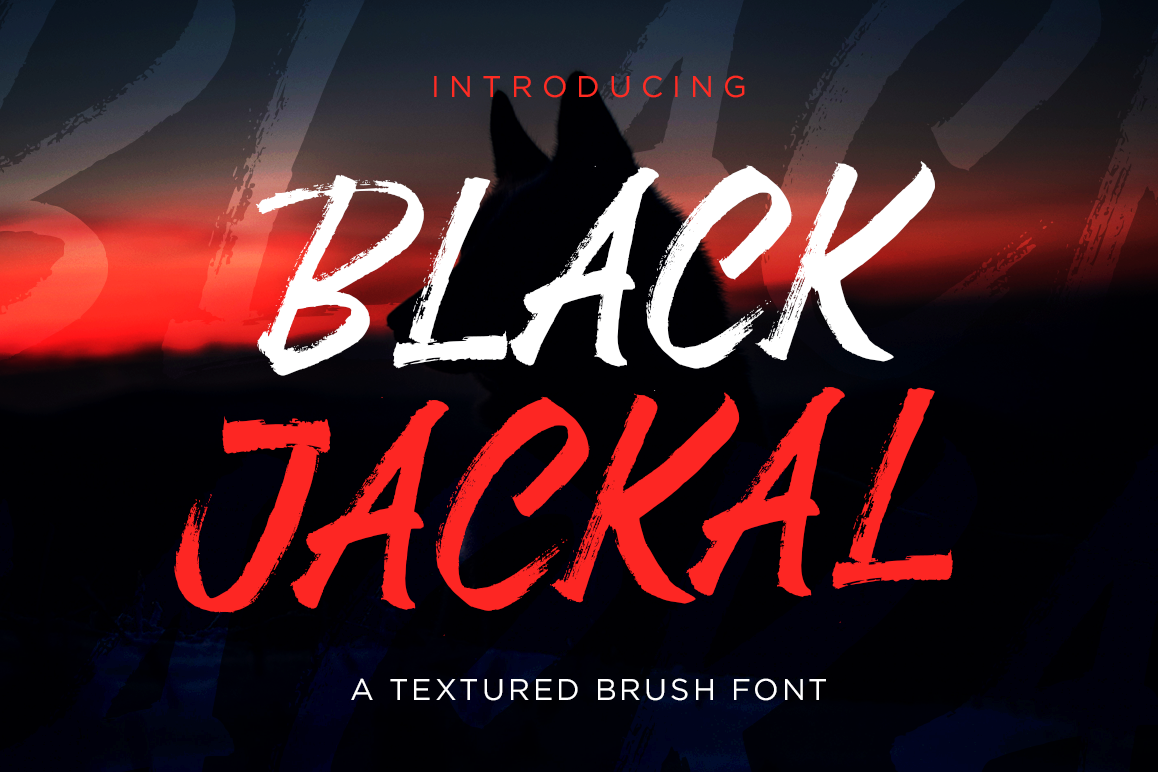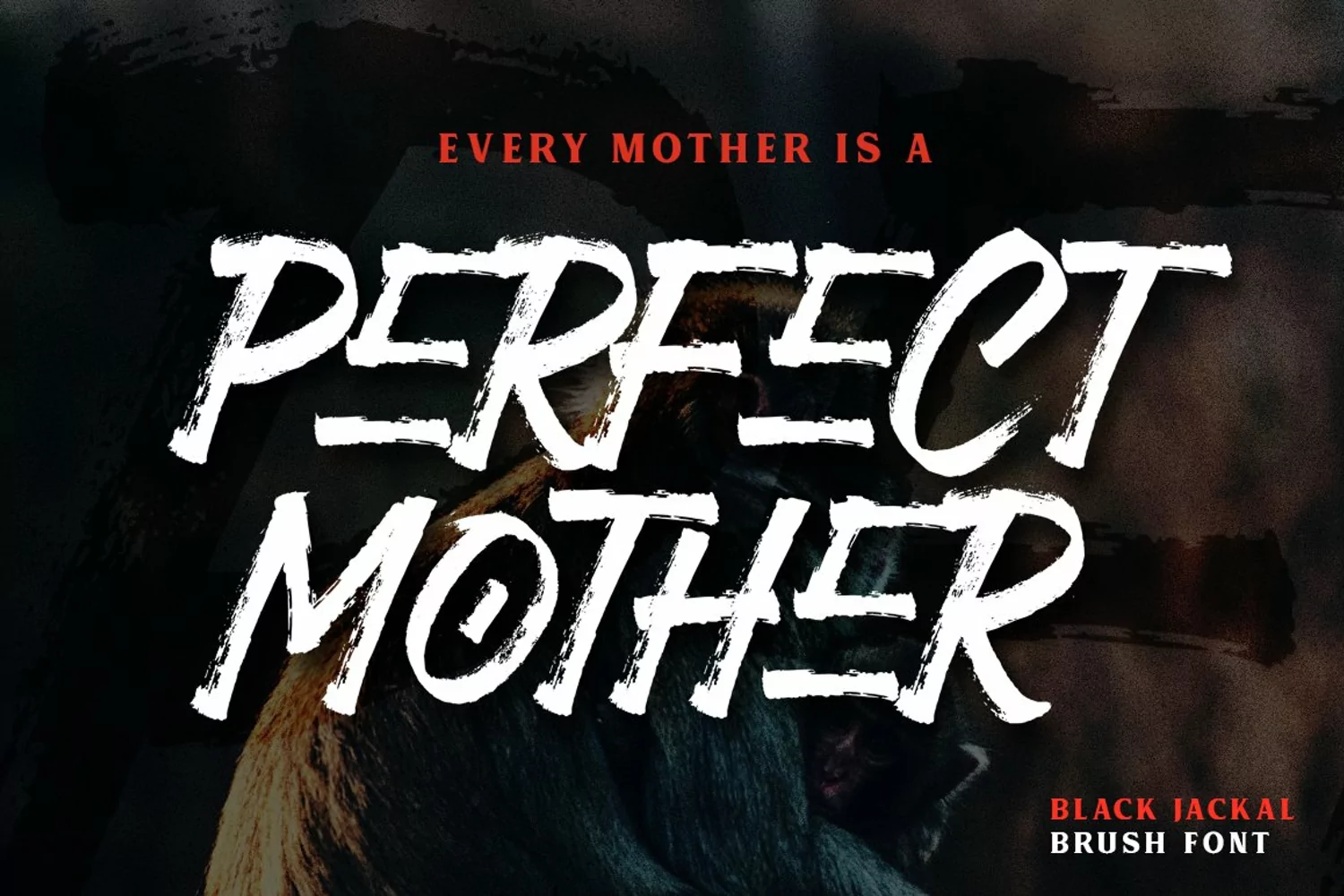
Black Jackal - Brush Font
Black Jackal is  a modern, handbrush typeface. It has strong, cool yet classy looks.  It comes with ALL CAPS Character with some unique ligatures.
Black Jackal is great for display, apparel, album, quotes, branding, social media, advertisement and any other projects.